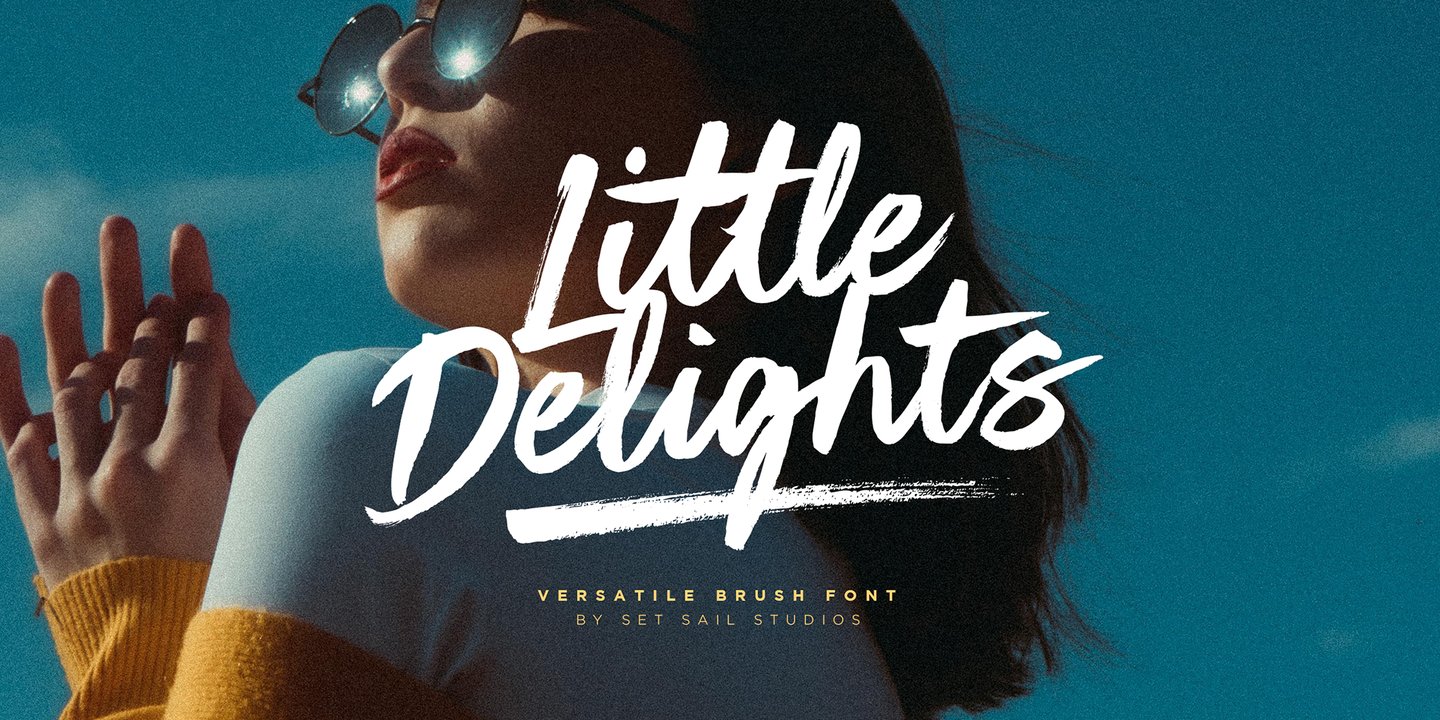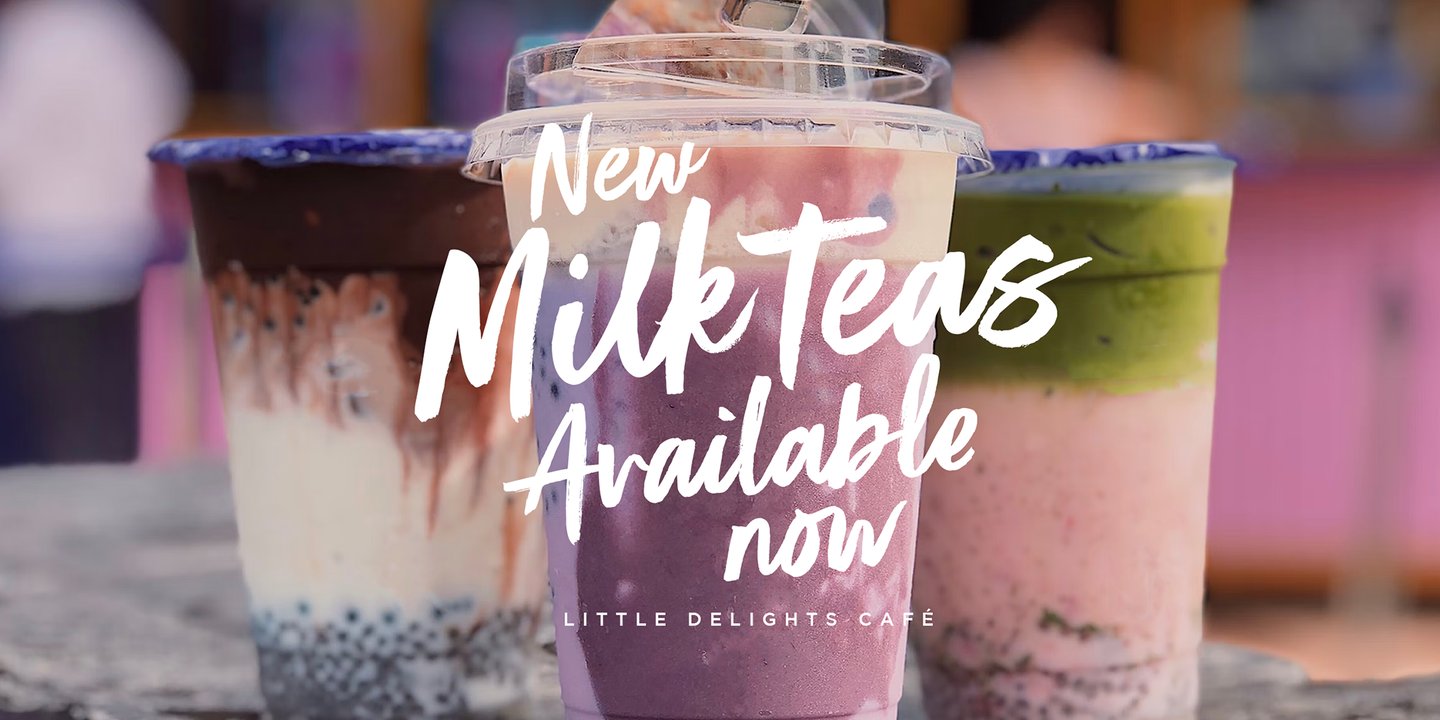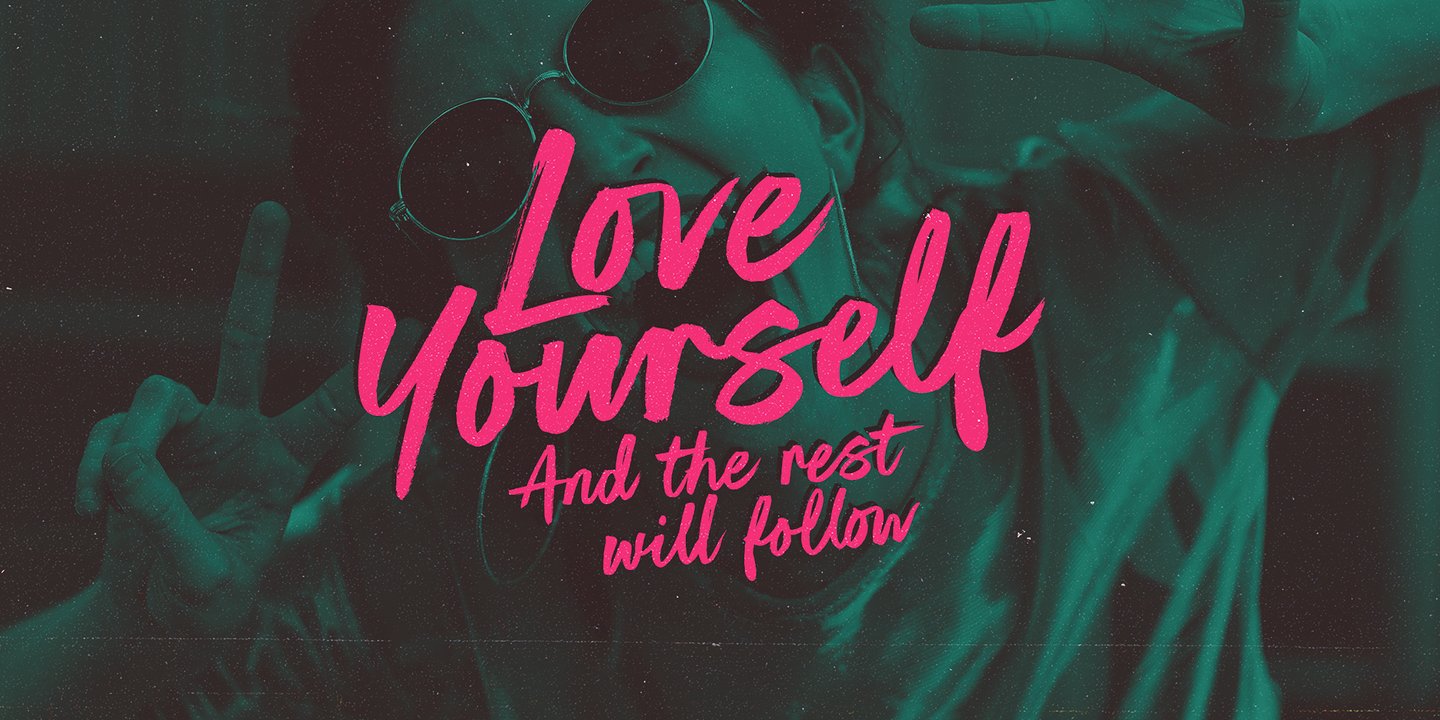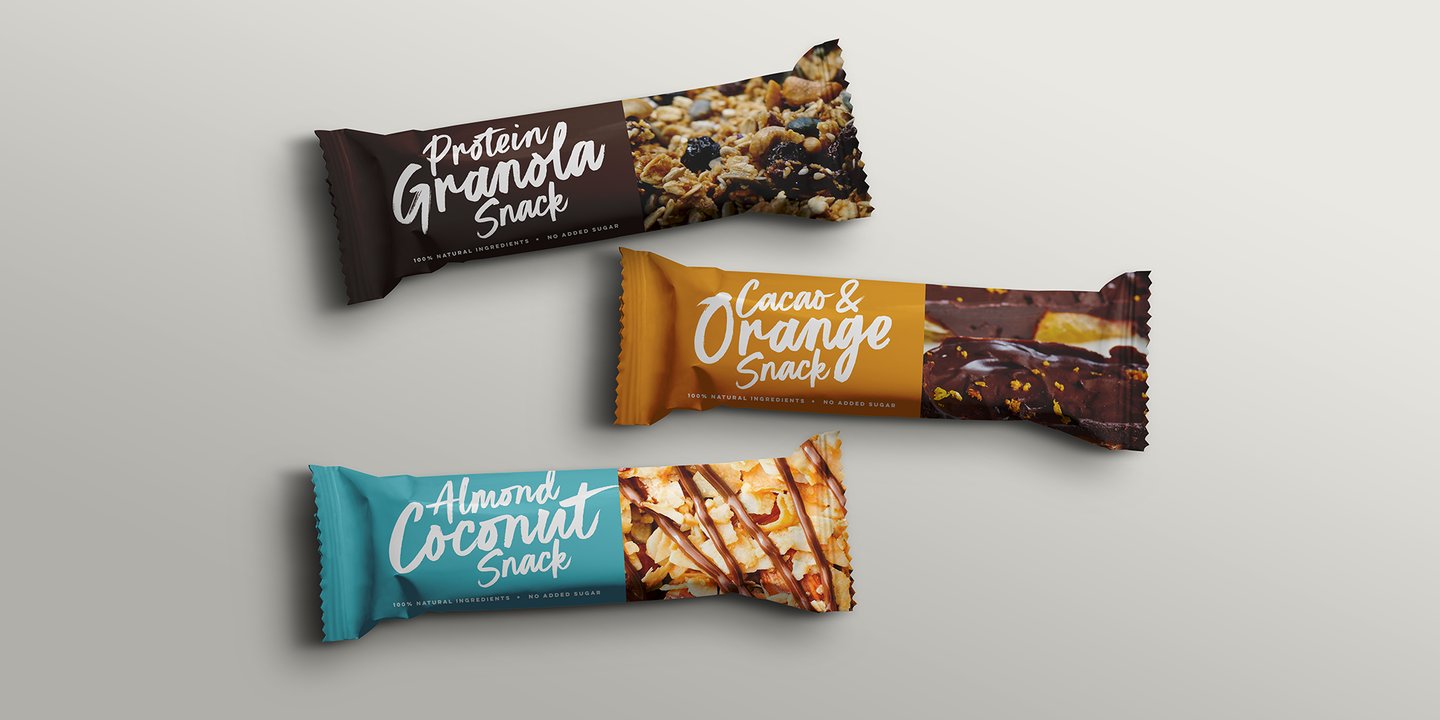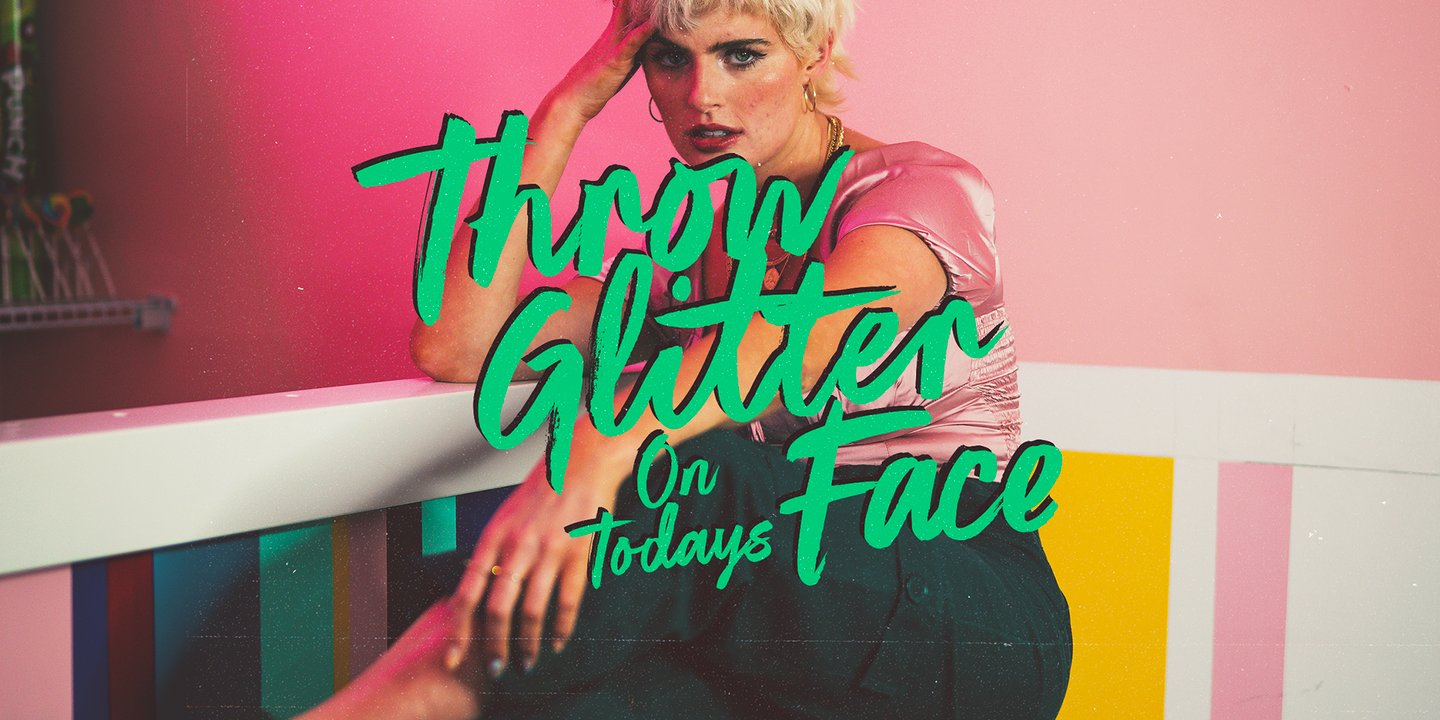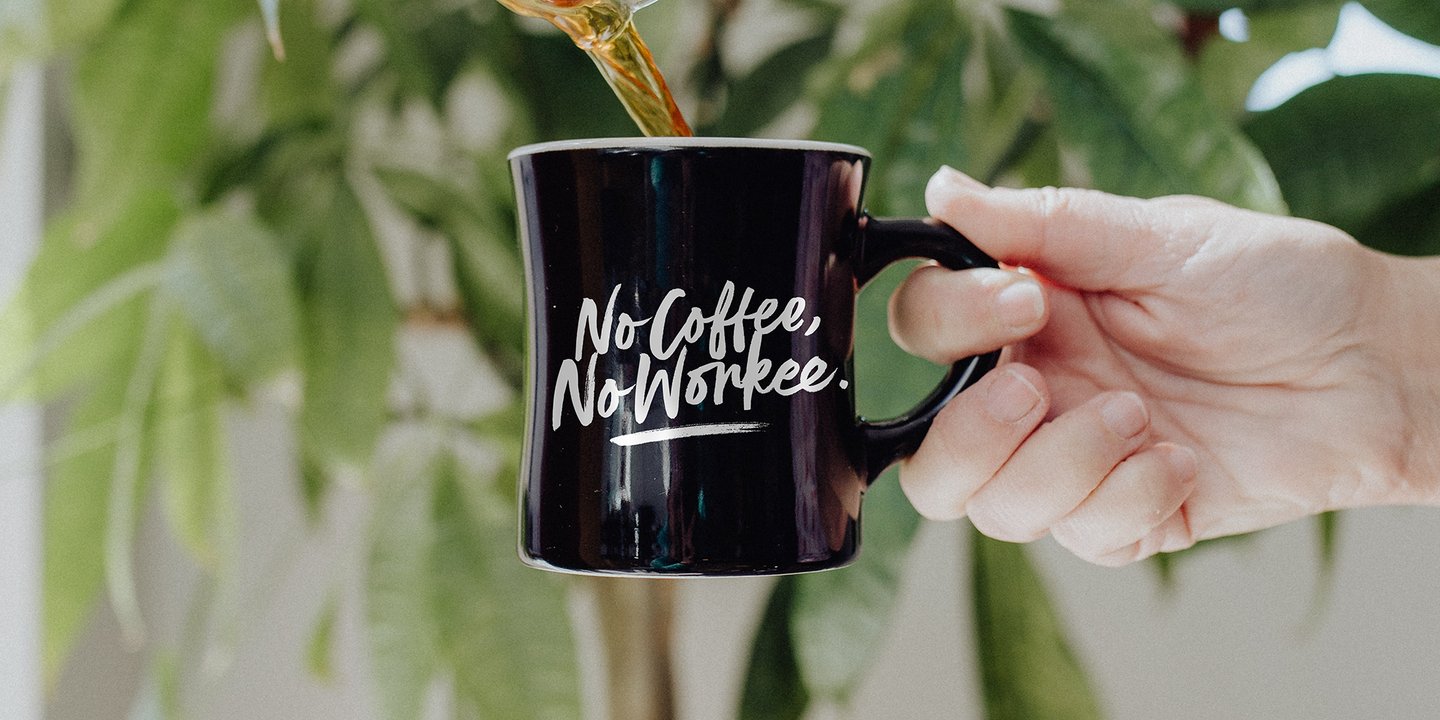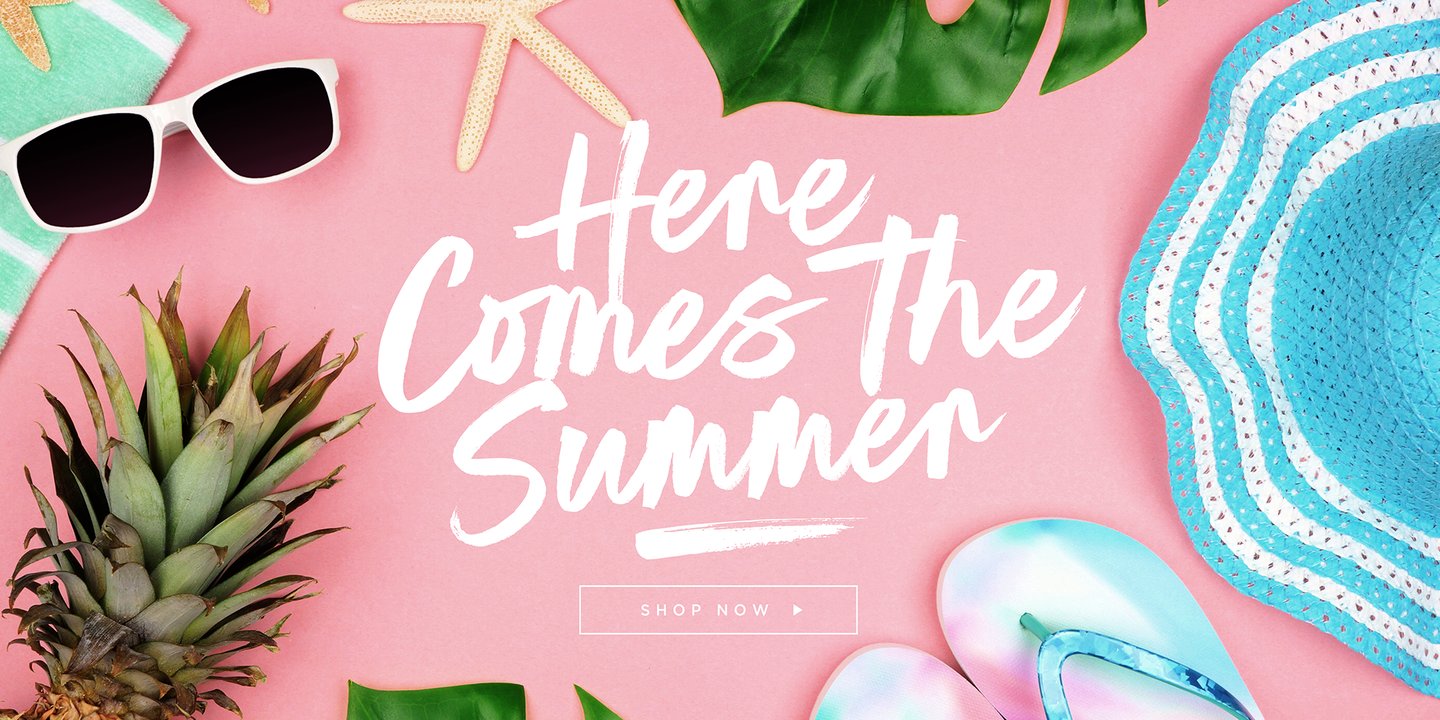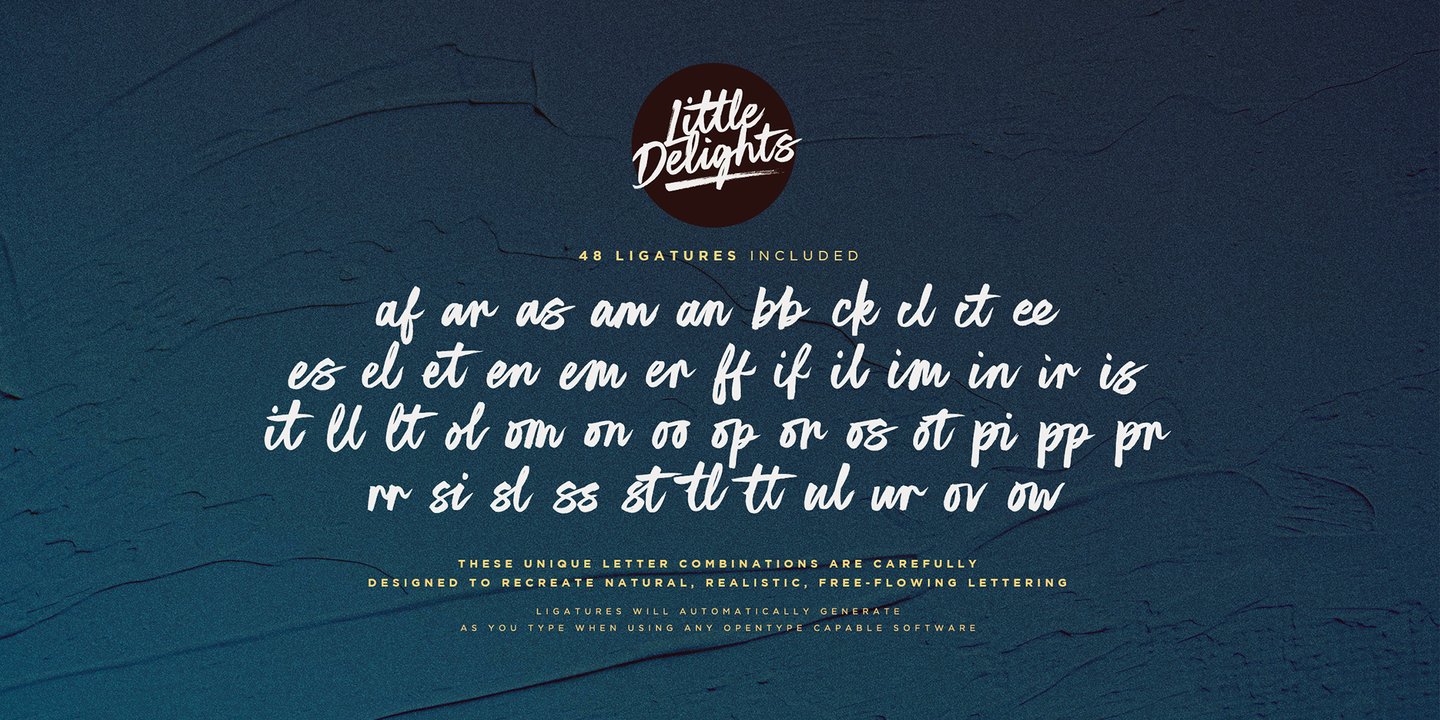
About the Little Delights Font
About Little Delights Font Family Why not treat yourself to some Little Delights? This super playful & versatile brush font includes 429 glyphs in total – and is designed to perfectly recreate natural, free-flowing brush script lettering while maintaining a relatable charm, Hand painted with a real paintbrush, and packed with 48 Ligatures, you’re bound to enjoy this go-to brush font for years to come on a variety of projects
As well as a full alternate set of upper & lowercase characters in it’s own separate font, Little Delights also includes a set of 6 Swashes, ideal for underlining your lettering and adding that extra ‘custom’ style, Swashes can be accessed via a glyphs panel
Accessing Ligatures; These 48 unique double letter combinations will help letters connect and flow more naturally, The ligatures will automatically generate when using the Little Delights fonts with most software, Language Support; English, French, Italian, Spanish, Portuguese, German, Swedish, Norwegian, Danish, Dutch, Finnish, Indonesian, Malay, Hungarian, Polish, Croatian, Turkish, Romanian, Czech, Latvian, Lithuanian, Slovak, Slovenian